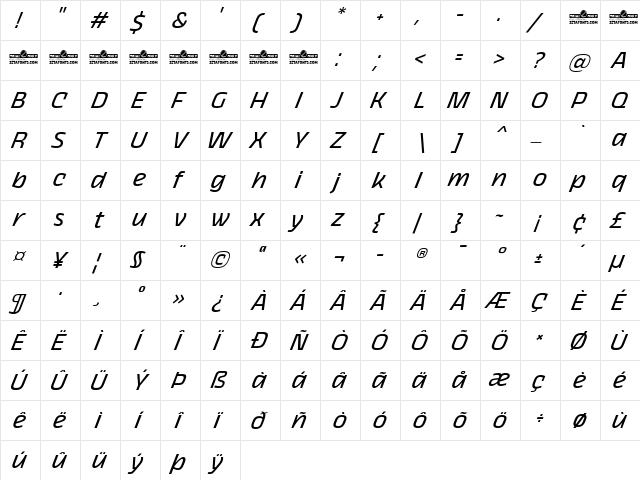
Thicker Trial Regular Italic
Regular Italic · Zetafonts Francesco Canovaro ·
Design Context for Thicker Trial Typeface
Thicker Trial takes a measured approach to typography — its balanced proportions and neutral character make it a reliable workhorse for both digital and print work. The slanted form adds forward momentum and visual energy.